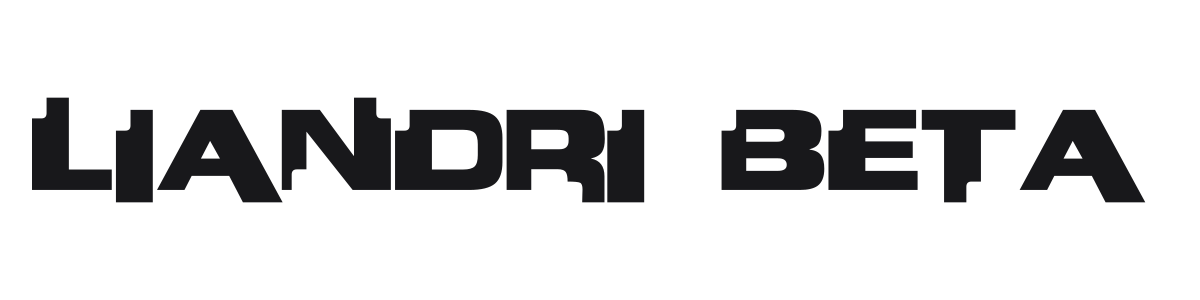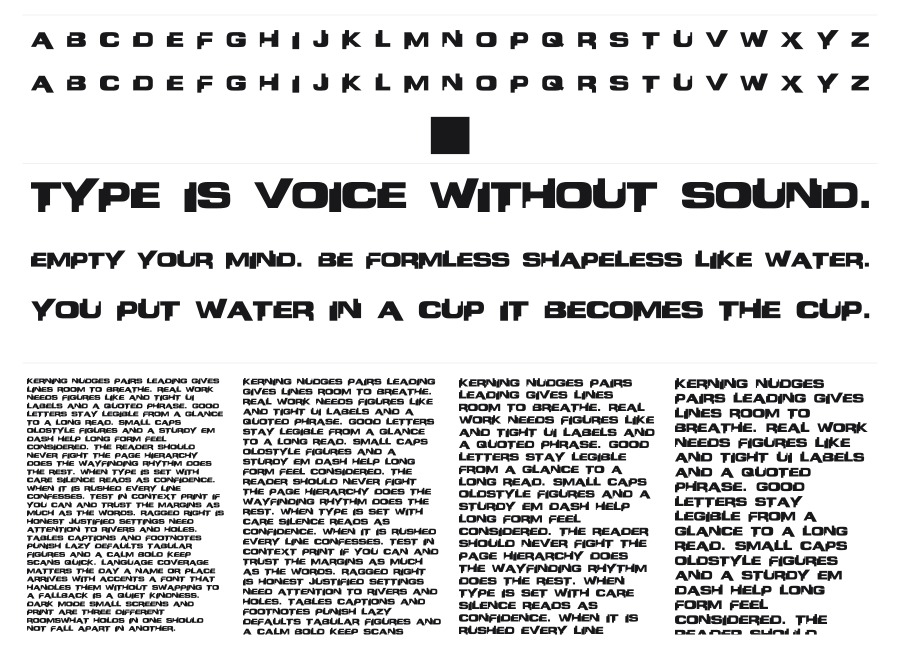
Liandri Beta
Liandri Beta is a heavy distressed display font built on squared, blocky sans-serif architecture with deliberate rectangular cutouts punched through the letter bodies. The fragmentation reads as glitch damage or industrial wear, giving the design a gritty sci-fi edge that recalls early 2000s gaming aesthetics. It carries weight and aggression at large sizes.